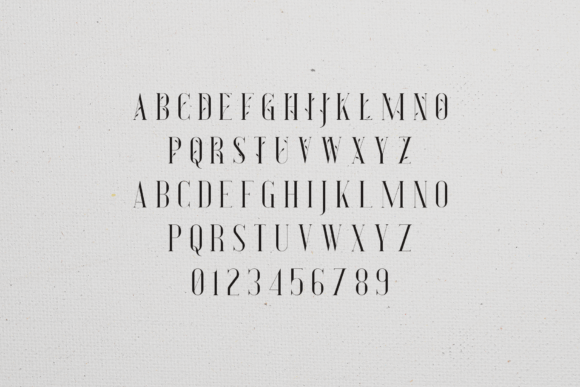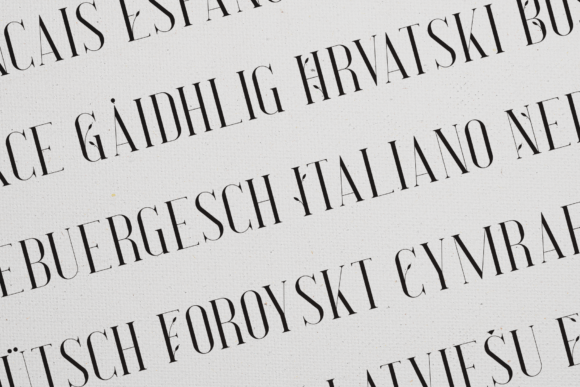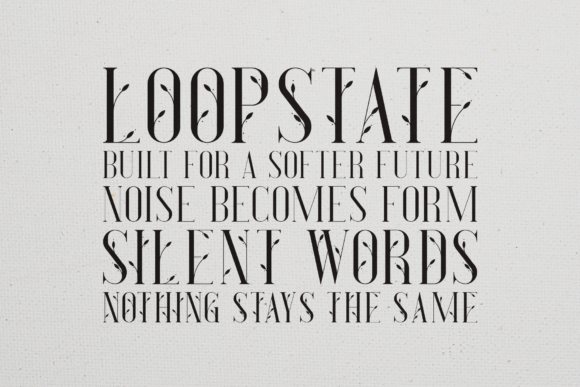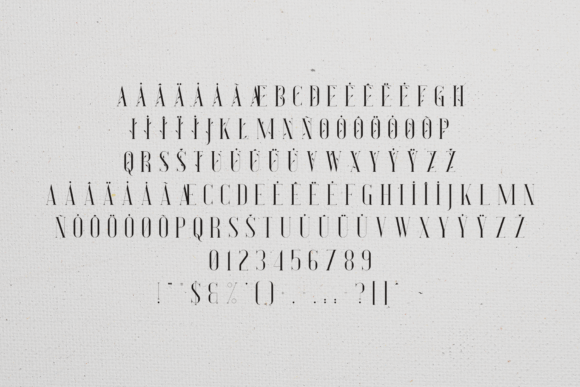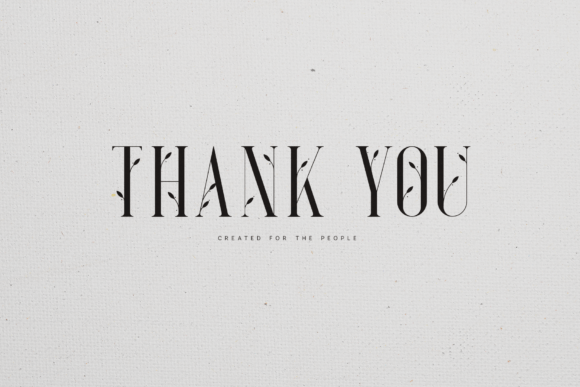
Introducing Desire Font: Elevate Your Designs with Elegance and Nature
In the world of typography, a well-crafted font can make all the difference in elevating a design from ordinary to extraordinary. For designers and crafters seeking to infuse their work with sophistication and natural beauty, Desire Font is an exceptional choice. This refined botanical serif typeface seamlessly blends elegant letterforms with delicate organic leaf details, making it perfect for a wide range of applications.
The Essence of Desire Font
Desire Font is more than just a typeface; it’s an experience. Its botanical serif design combines the classic elegance of serif fonts with the organic charm of nature-inspired elements. Each letterform is meticulously crafted to exude refinement and poise, while the subtle incorporation of leaf details adds a touch of whimsy and connection to the natural world.
Perfect for High-End Designs
Desire Font is tailor-made for high-end designs where luxury and sophistication are paramount. Its refined aesthetic makes it an ideal choice for:
• Fashion Branding: Elevate your fashion brand with a typeface that exudes elegance and style.
• Wedding Designs: Add a touch of romance and sophistication to wedding invitations, programs, and decor.
• Magazine Layouts: Create visually stunning editorial layouts that showcase your content in a refined and captivating manner.
• Logos: Craft memorable and impactful logos that convey luxury and sophistication.
• Product Packaging: Stand out in the market with packaging that features elegant typography.
• Invitations: Make a lasting impression with beautifully designed invitations that set the tone for any event.
• Premium Typography Compositions: Create artistic typography compositions that showcase your creativity and skill.
Why Choose Desire Font?
With so many typefaces available, why choose Desire Font for your next project? Here are just a few reasons:
• Unique Blend of Elegance and Nature: Desire Font offers a distinctive combination of refined letterforms and organic leaf details, making it a versatile and eye-catching choice.
• High Versatility: Whether you’re working on luxury branding, editorial layouts, or artistic typography, Desire Font adapts seamlessly to various design contexts.
• Attention to Detail: The meticulous craftsmanship that goes into Desire Font ensures that every letterform and leaf detail contributes to a cohesive and sophisticated visual identity.
Tips for Using Desire Font Effectively
To maximize the impact of Desire Font in your designs, consider the following tips:
• Pair with Complementary Fonts: Combine Desire Font with simpler sans-serif fonts for body text to create visual contrast and hierarchy.
• Experiment with Color: Take advantage of Desire Font’s versatility by experimenting with different color palettes that enhance its botanical and serif elements.
• Play with Scale: Use varying font sizes to create visual interest and emphasize key elements in your design.
Desire Font is a game-changer for designers and crafters looking to infuse their work with elegance, sophistication, and a touch of natural beauty. Its unique blend of refined letterforms and delicate organic leaf details makes it an exceptional choice for a wide range of high-end designs. Whether you’re creating luxury branding, elegant editorial layouts, or artistic typography, Desire Font is sure to elevate your designs to new heights.
Discover the possibilities with Desire Font and transform your designs with its timeless elegance and natural charm.